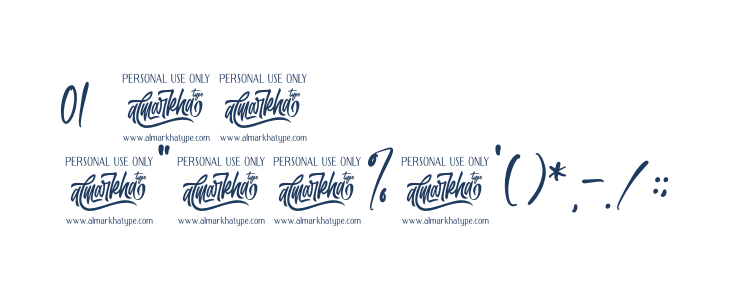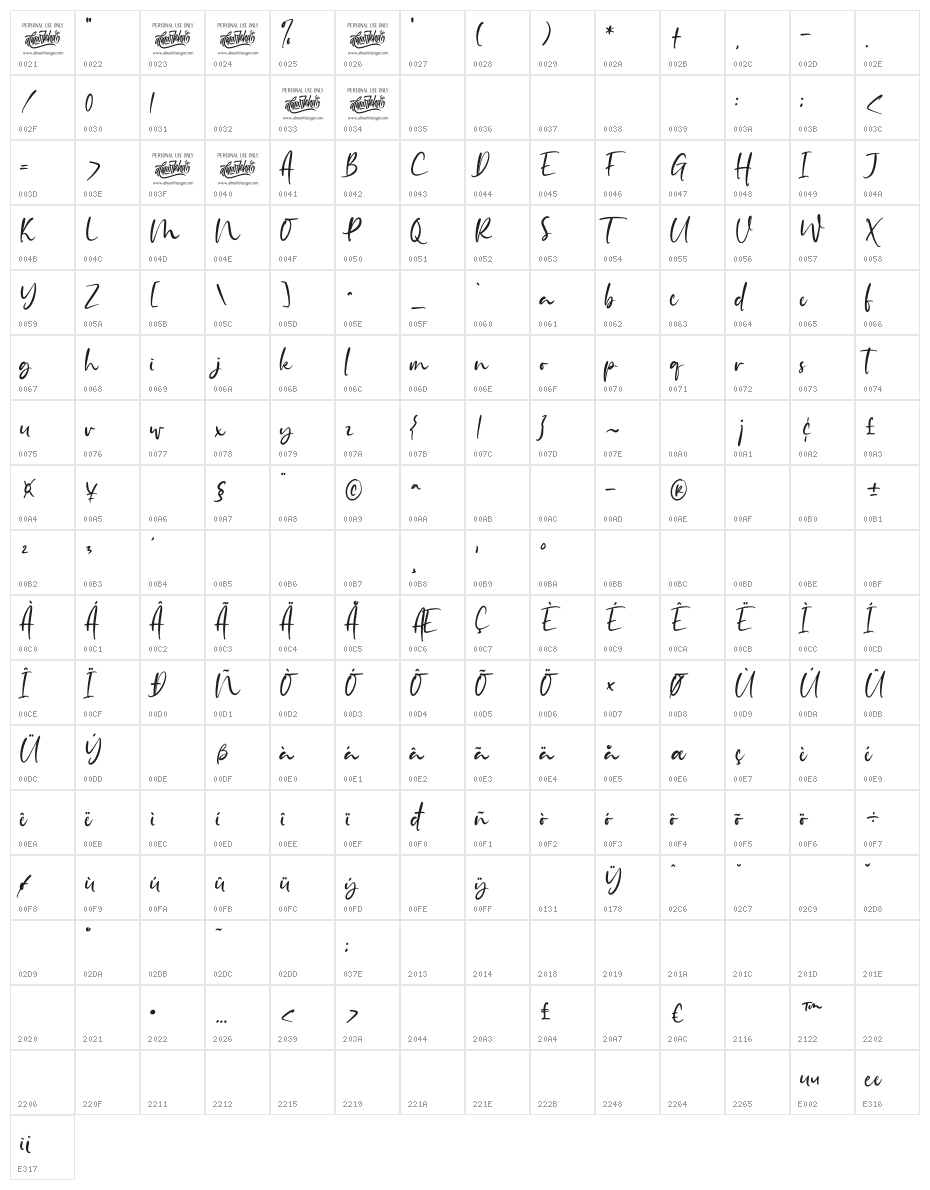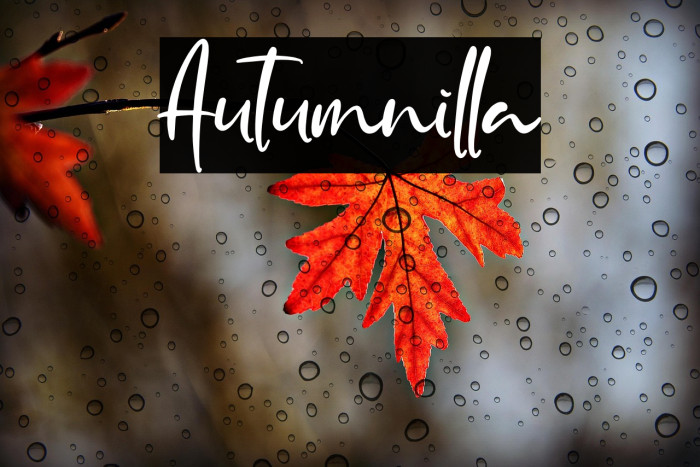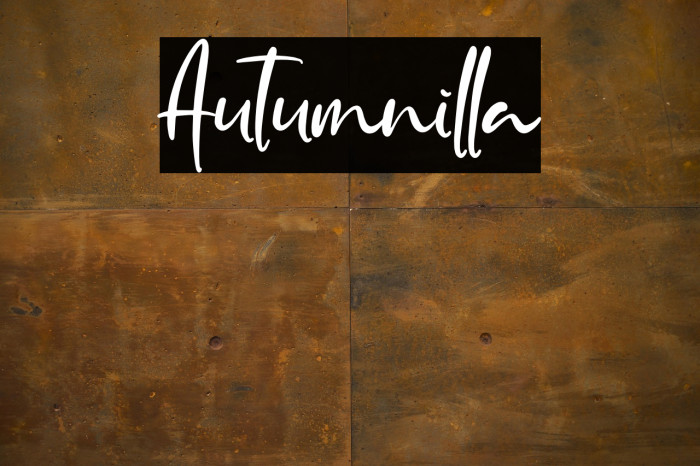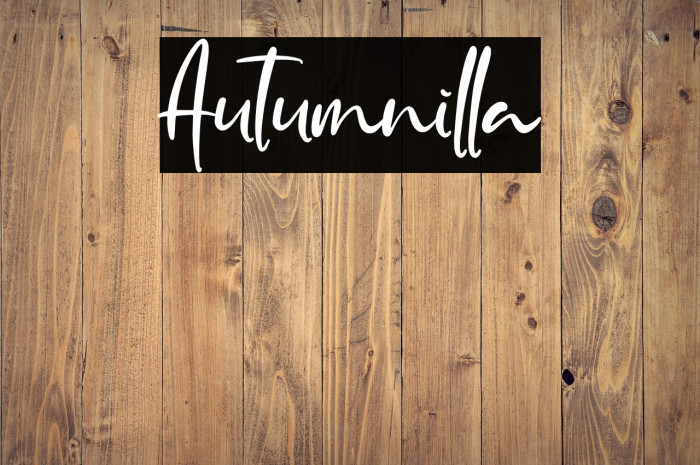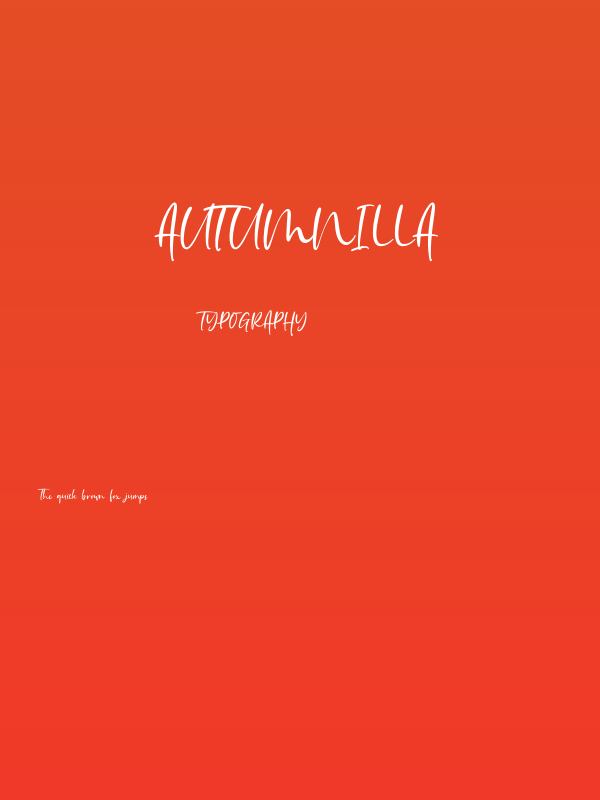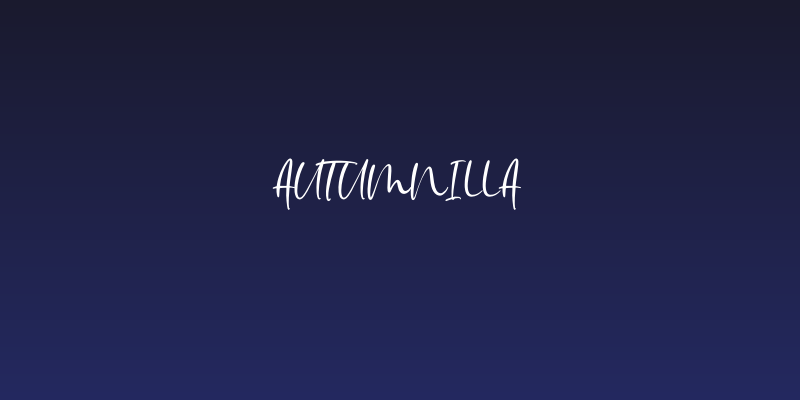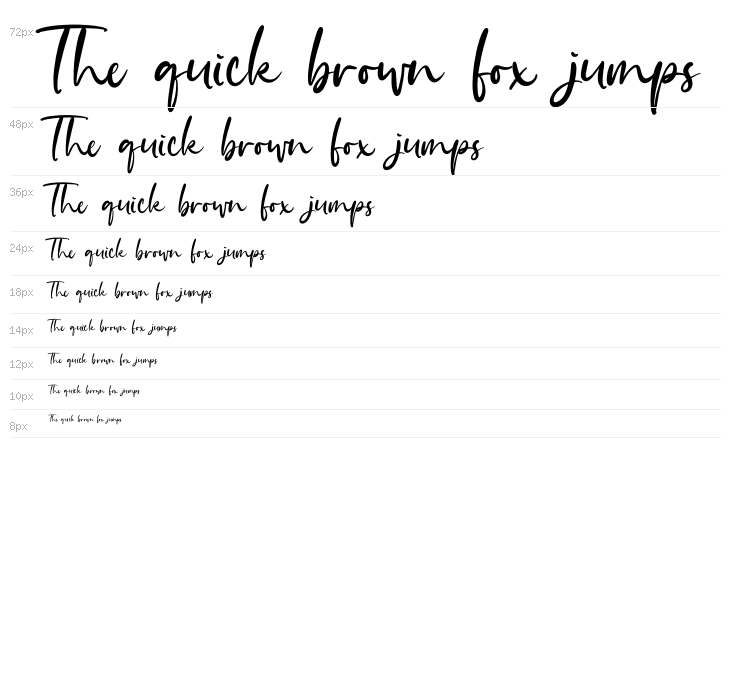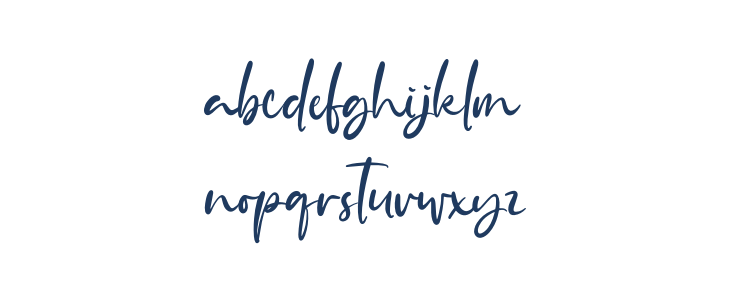
Autumnilla Font
Autumnilla Description
This font features a lively and expressive handwritten style, characterized by its fluid and dynamic strokes. The uppercase letters are bold and slightly slanted, giving a sense of movement and energy. The lowercase letters maintain a consistent flow, with some characters extending below the baseline, adding to its playful nature. The numerals are clear and distinct, while the special characters complement the overall aesthetic with their unique flair. This font exudes a casual and artistic vibe, making it suitable for creative and informal projects.
| Overall Style | Casual and Artistic |
| Use Case | Logos, Headlines, Creative Projects |
| Proposed Projects | Ideal for greeting cards, invitations, personal branding, and social media graphics. |